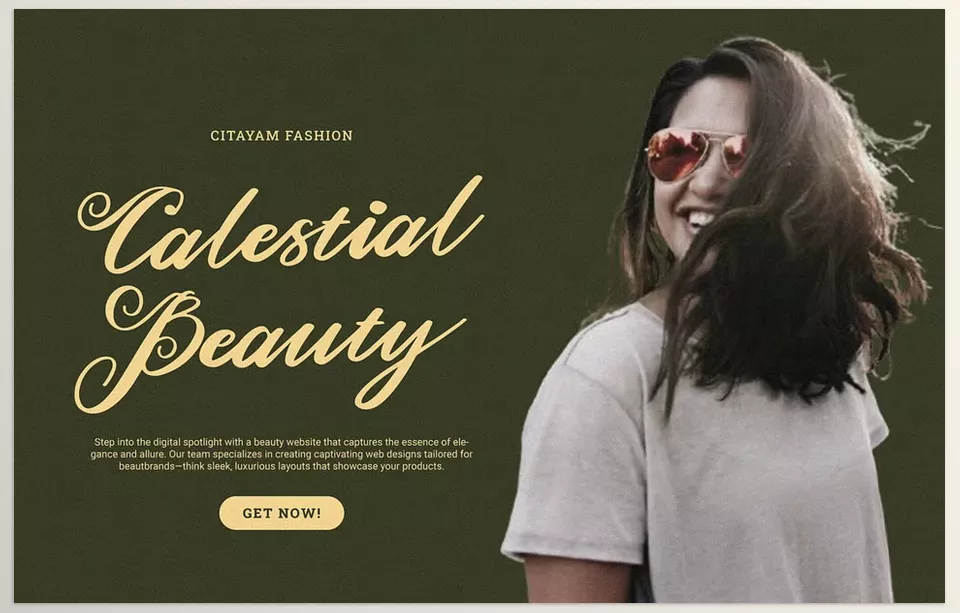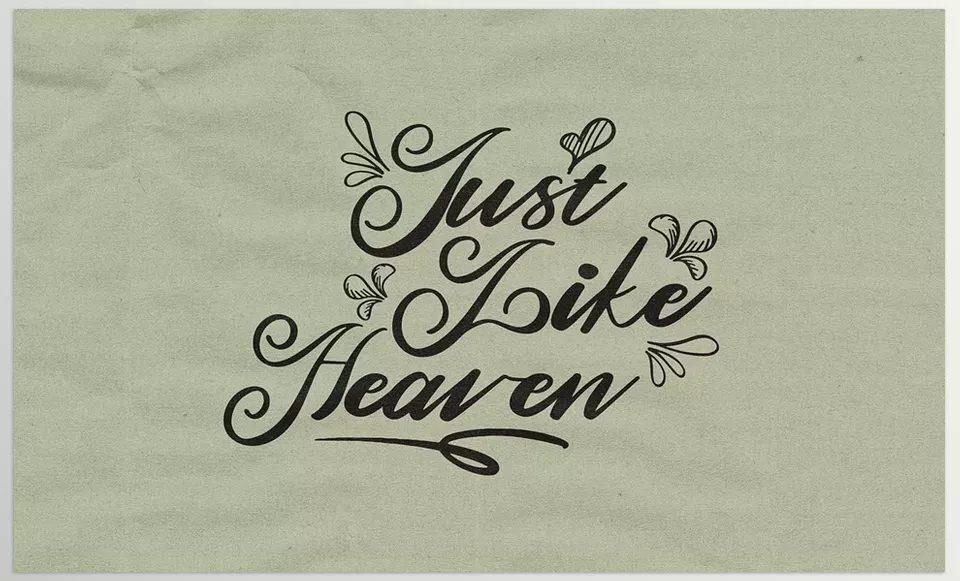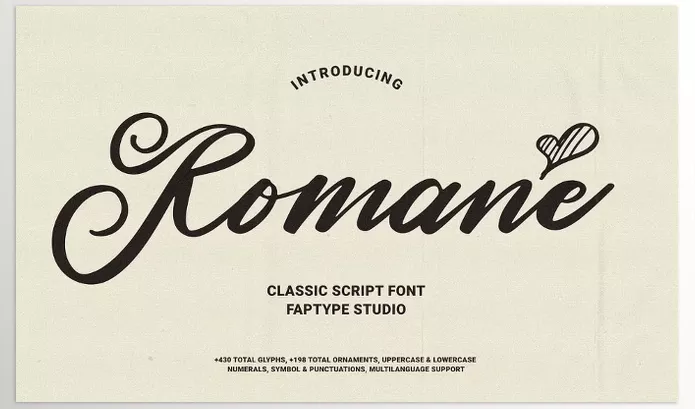
Creative Market – Romane Classic Handwritten Script is a free-flowing, ornamental script font with features that articulate synchronously blending modern stylistic elements with classic elegance. The font is smooth and easy to read, and with its balanced weight, it is perfect for logo designs, invitation creation, or even branding.
Ardana Creative – Romane Classic Handwritten Script Features
Comprehensive Character Set:
• Upper case and lower case letters
• Numbers and all symbols, such as punctuation marks
• Support for other languages
• Additive PUA-encoded characters
• Over 429 glyphs and 198 brush swash forms are included in an extensive library.
Image 1: Romane blends the elegant curves of classic calligraphy with contemporary refinement, resulting in a style that is both refined and welcoming.
Creative Market - Romane Classic Handwritten Script - Romane blends the elegant curves of classic calligraphy with contemporary refinement, resulting in a style that is both refined and welcoming.
Image 2: Perfect for branding, invitations, packaging, and editorial design.
Creative Market - Romane Classic Handwritten Script - Perfect for branding, invitations, packaging, and editorial design.